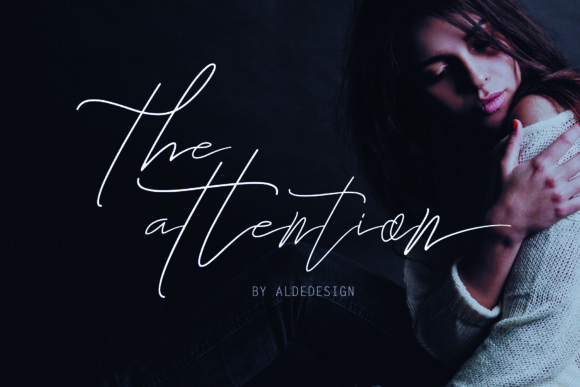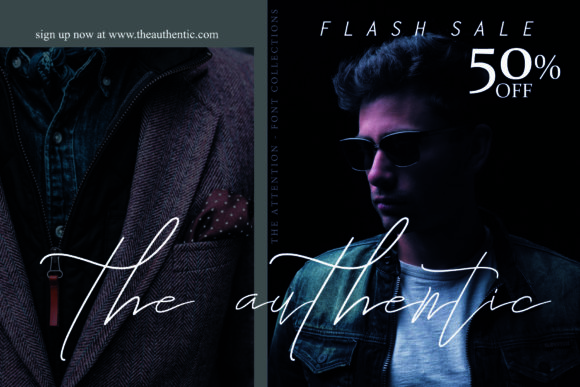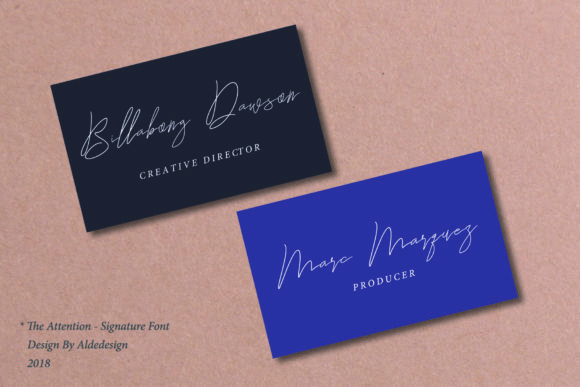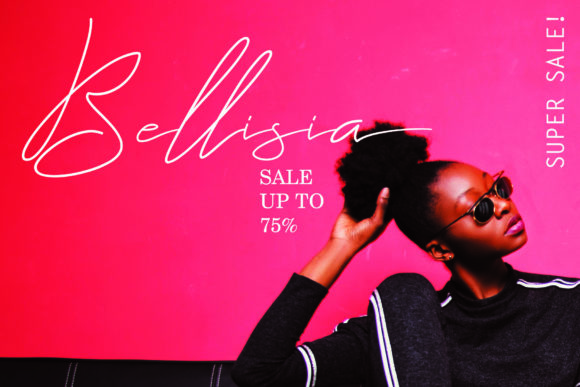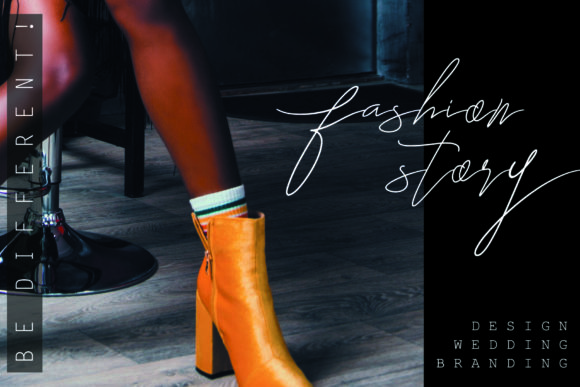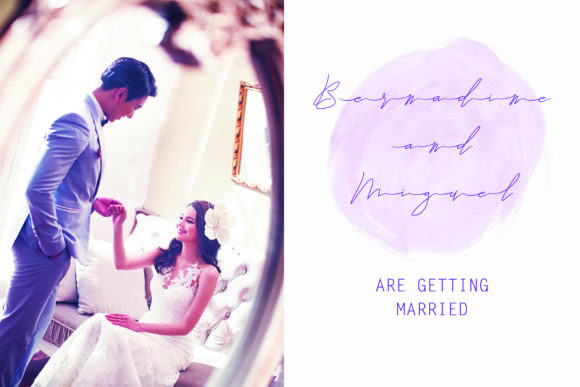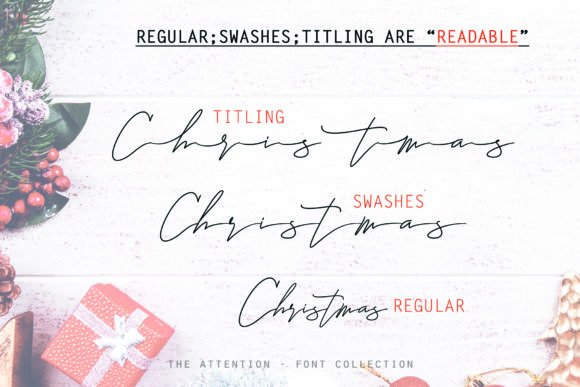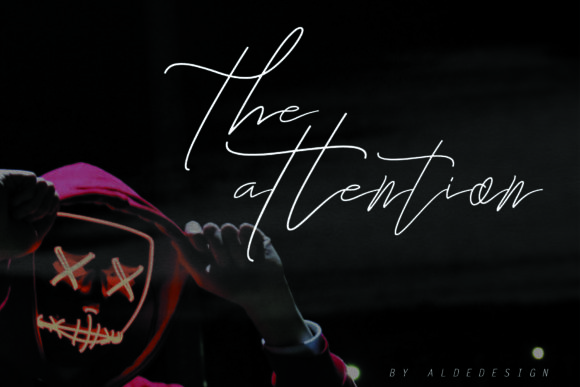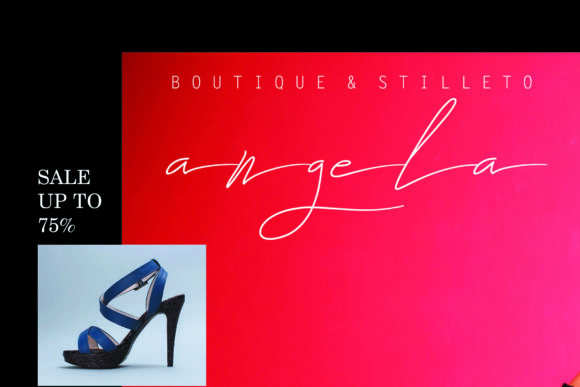
The Attention Font
About The Attention Font
The Attention is a stylish and unique signature font that is easy to remember. It’s great for unique branding, photo overlays, watermarks, business cards, invitations, and much more!